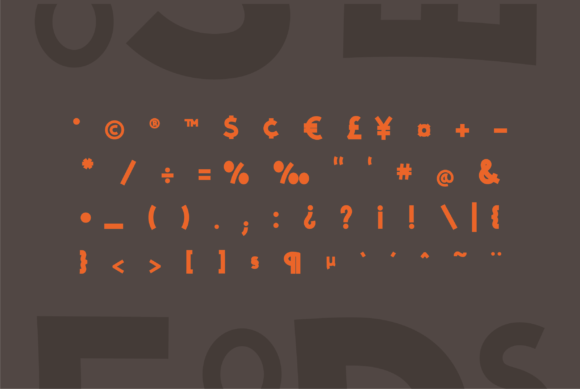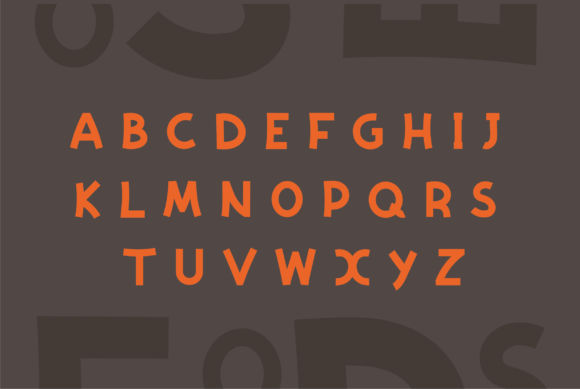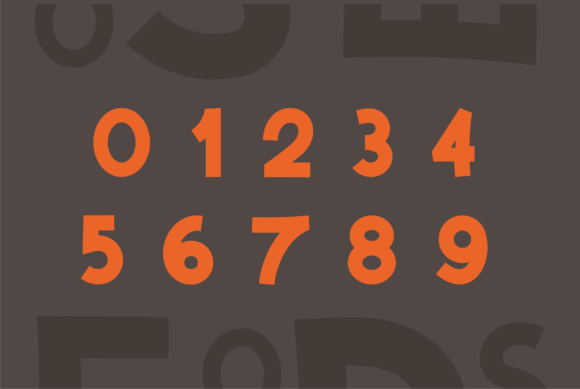
Introducing Espesso Font: The Ultimate Bold Handwritten Font for Designers and Crafters
Are you tired of using the same old fonts in your designs? Look no further than Espesso, a bold handwritten font that’s sure to become a true favorite. With its casual charm and down-to-earth feel, Espesso is the perfect choice for designers and crafters looking to add a personal touch to their work.
What Makes Espesso So Special?
Espesso is more than just a font – it’s a statement piece. Its bold, handwritten style is carefully handcrafted to give it a unique and authentic feel that’s hard to find in digital fonts. Whether you’re using it as a standalone headline or as part of a larger design, Espesso is sure to turn heads.
One of the things that sets Espesso apart is its incredible versatility. This font can be used in a wide range of contexts, from busy backgrounds to clean and simple designs. It’s also highly readable, making it perfect for use in body text or as a headline.
The Benefits of Using Espesso in Your Designs
So why choose Espesso over other fonts? Here are just a few benefits of using this amazing font in your designs:
- Unique and Authentic Style: Espesso’s handcrafted style gives it a unique and authentic feel that’s hard to find in digital fonts.
- Incredible Versatility: Whether you’re using it as a headline or as part of a larger design, Espesso is sure to look great.
- Highly Readable: Espesso is easy to read, even in small sizes, making it perfect for use in body text or as a headline.
- Casual Charm: Espesso’s casual charm makes it perfect for designs that need a personal touch.
How to Use Espesso in Your Designs
Using Espesso in your designs is easy. Here are a few tips to get you started:
- Use it as a Headline: Espesso is perfect for use as a headline or title. Its bold style is sure to grab attention and draw the eye.
- Pair it with Other Fonts: Espesso pairs well with a wide range of other fonts. Try pairing it with a clean sans-serif font for a bold and modern look.
- Use it on Busy Backgrounds: Espesso’s bold style makes it perfect for use on busy backgrounds. It’s easy to read and stands out well against complex patterns.
Who is Espesso For?
Espesso is perfect for designers and crafters who are looking for a unique and authentic font to add a personal touch to their work. Whether you’re a professional designer or just starting out, Espesso is a great choice for anyone looking for a high-quality font.
Some examples of designers who may find Espesso useful include:
- Graphic Designers: Espesso is perfect for use in graphic designs, such as brochures, flyers, and posters.
- Web Designers: Espesso can be used to add a personal touch to websites and web applications.
- Crafters: Espesso is a great choice for crafters who want to add a personal touch to their handmade projects.
In conclusion, Espesso is a bold handwritten font that’s sure to become a true favorite among designers and crafters. Its unique and authentic style, incredible versatility, and casual charm make it the perfect choice for anyone looking to add a personal touch to their work. Whether you’re using it as a headline or as part of a larger design, Espesso is sure to look great.